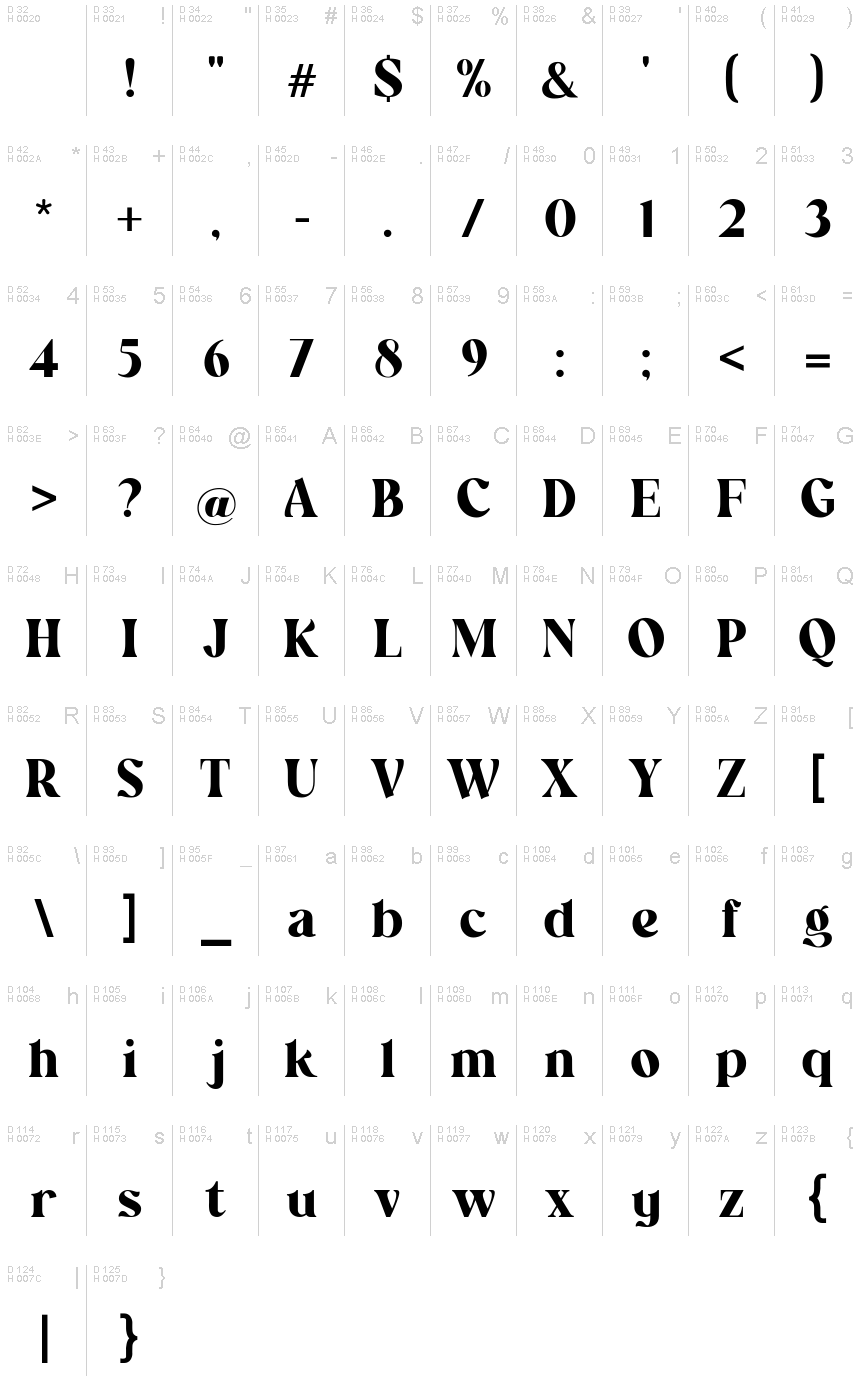
Wainscoted
Wainscoted by UI Creative is a bold serif font that commands attention and exudes sophistication. With its striking and elegant design, Wainscoted makes an impact, combining classic serif elements with a contemporary flair. Its robust and prominent strokes lend it an air of authority, making it perfect for headlines, logos, and branding materials where making a strong impression is essential.
The boldness of Wainscoted enhances readability while maintaining a stylish aesthetic, ideal for editorial design, book covers, or high-end product packaging. Its refined curves and sharp serifs make it versatile enough to suit both digital and print mediums seamlessly. Use Wainscoted to infuse your projects with timeless elegance and undeniable presence.